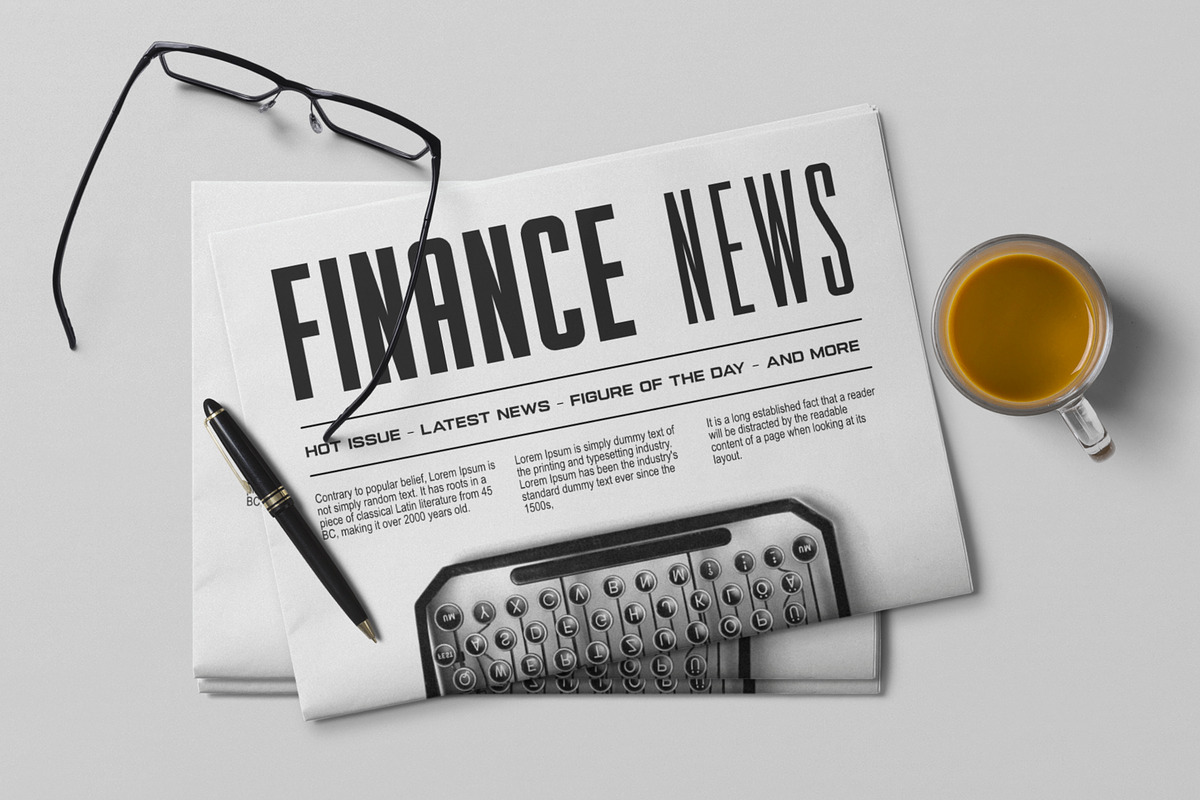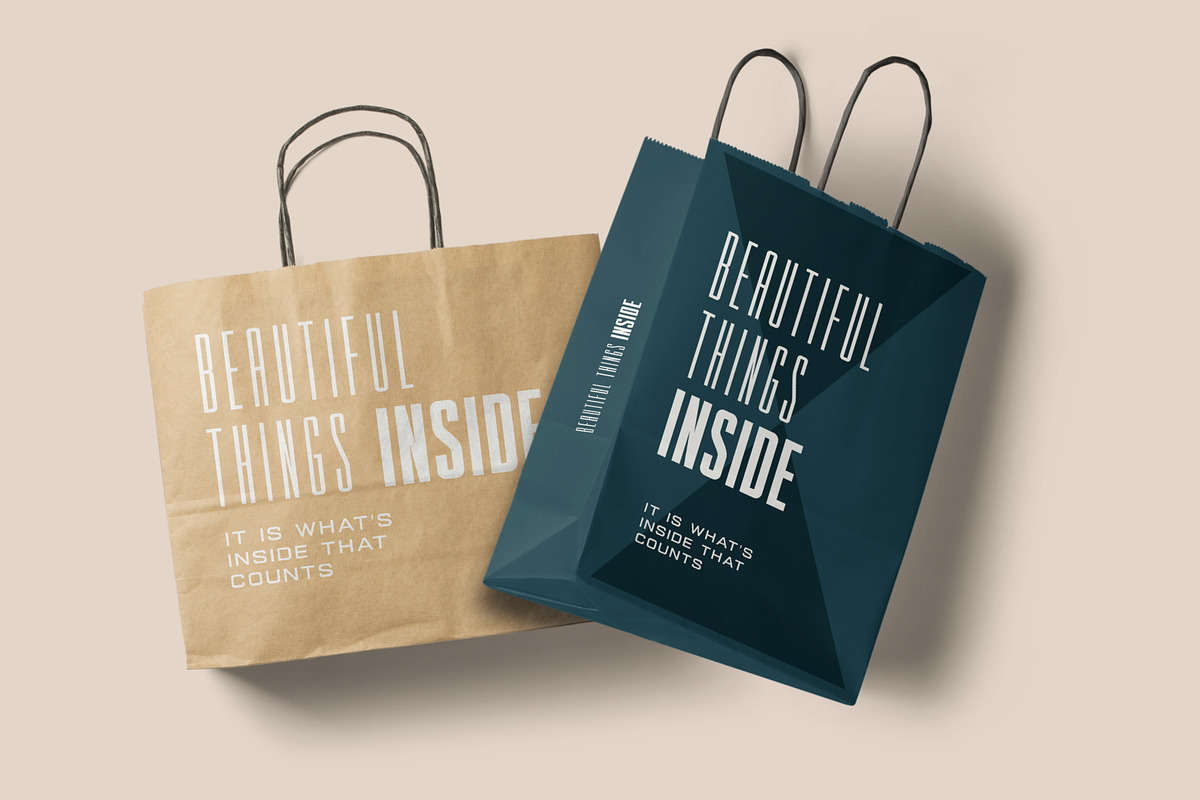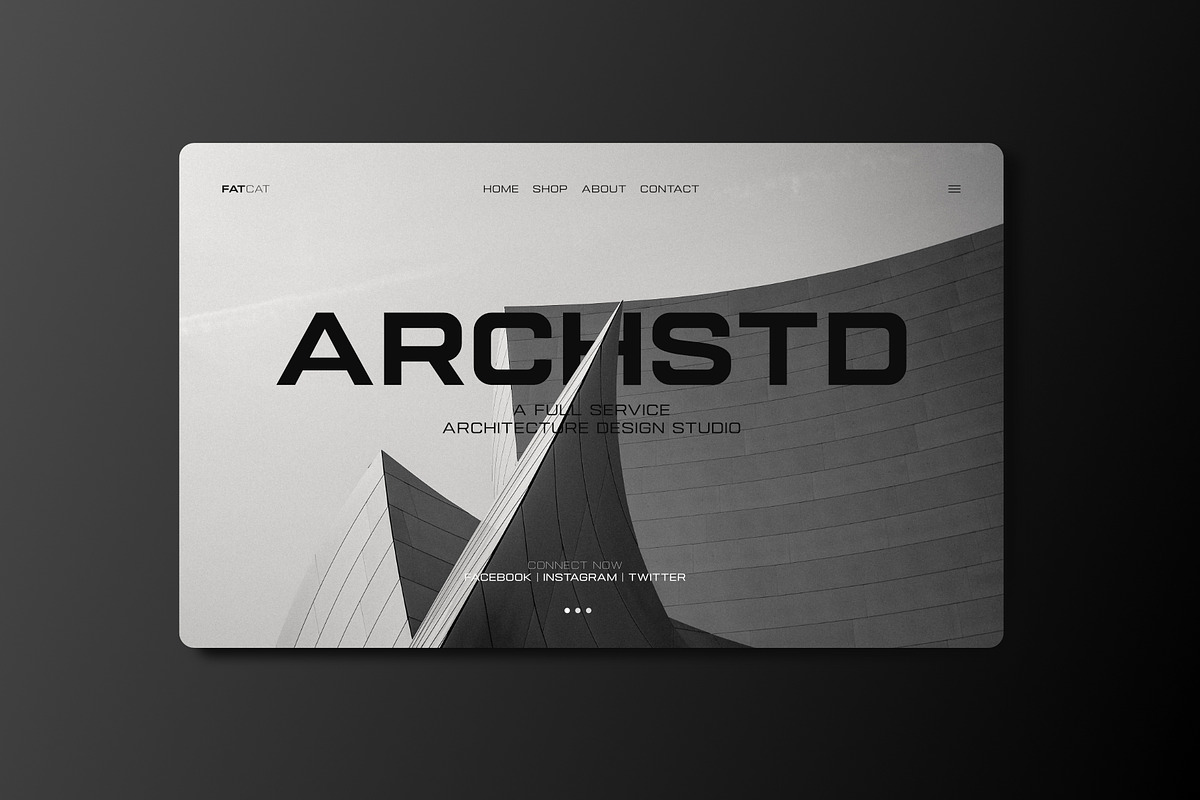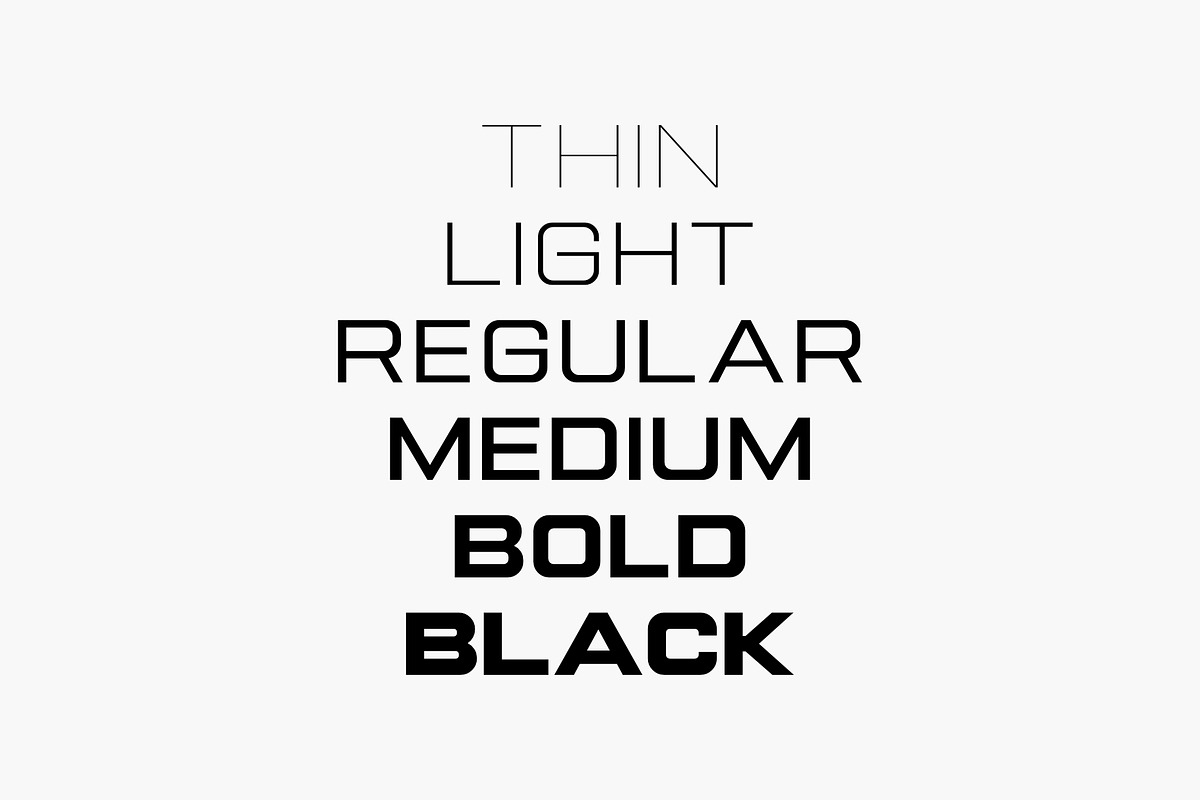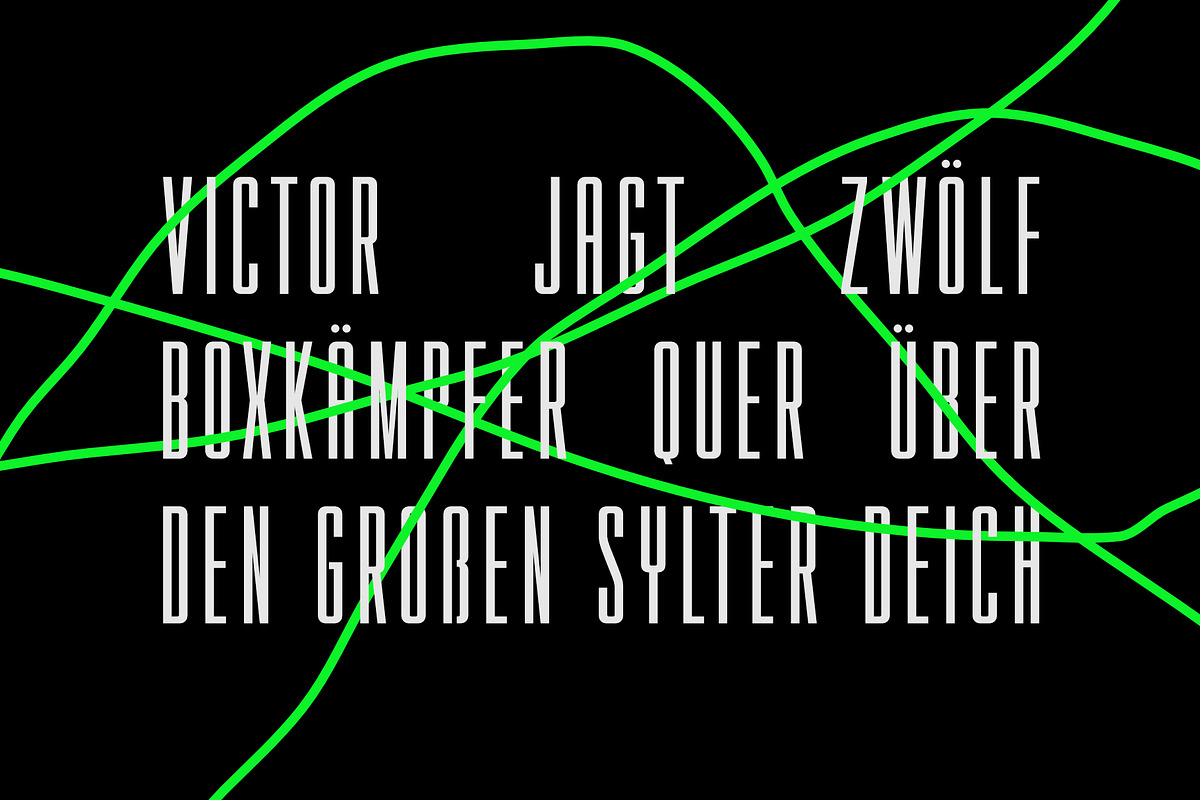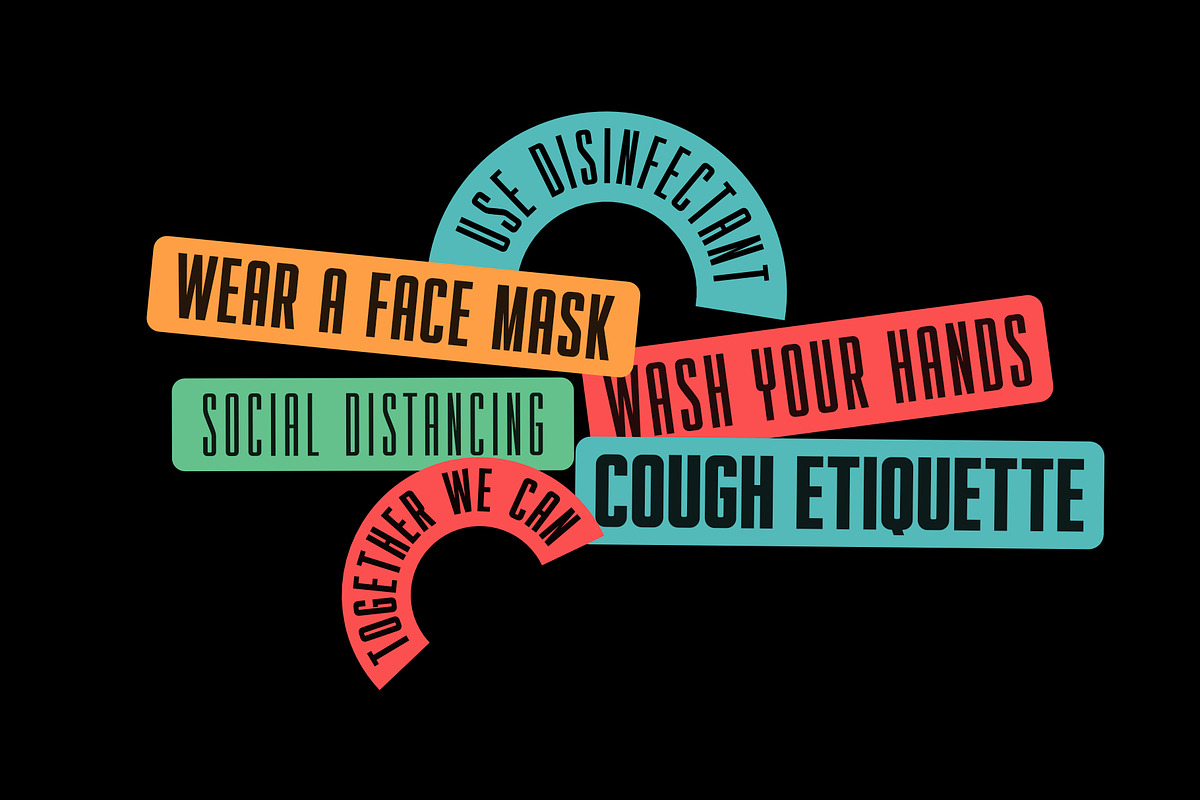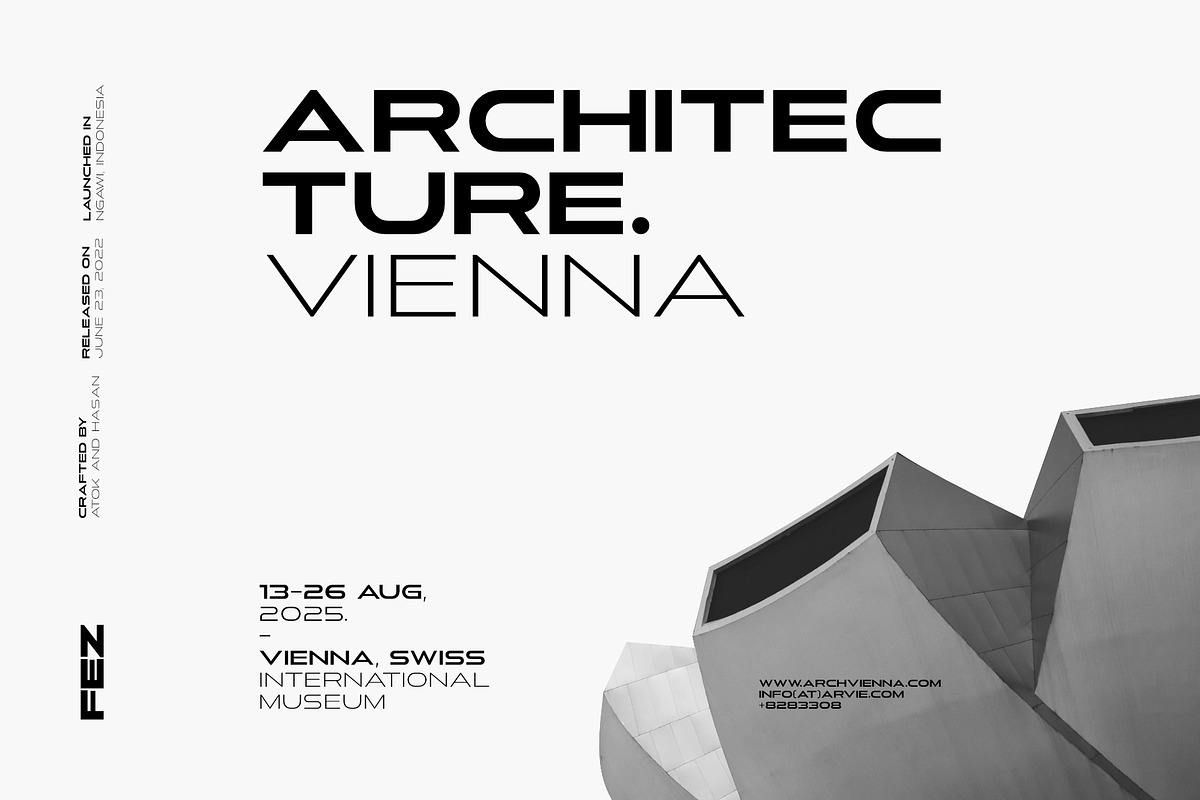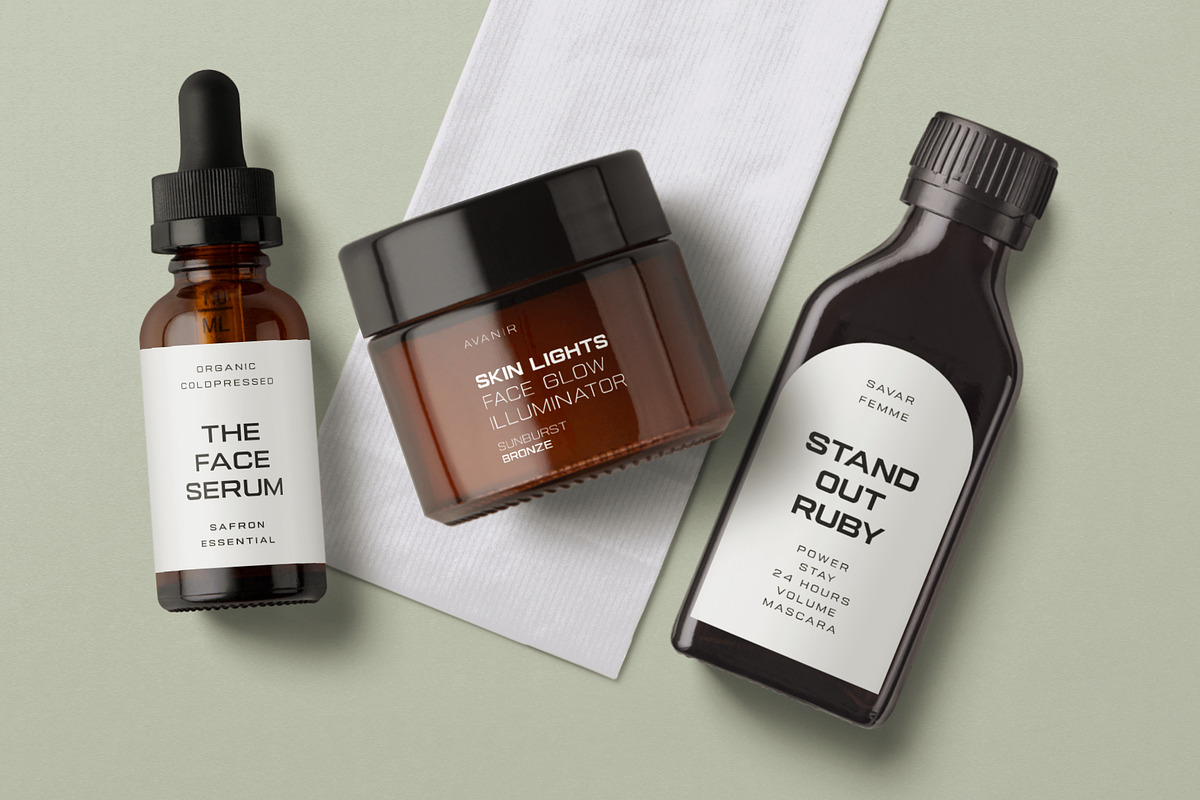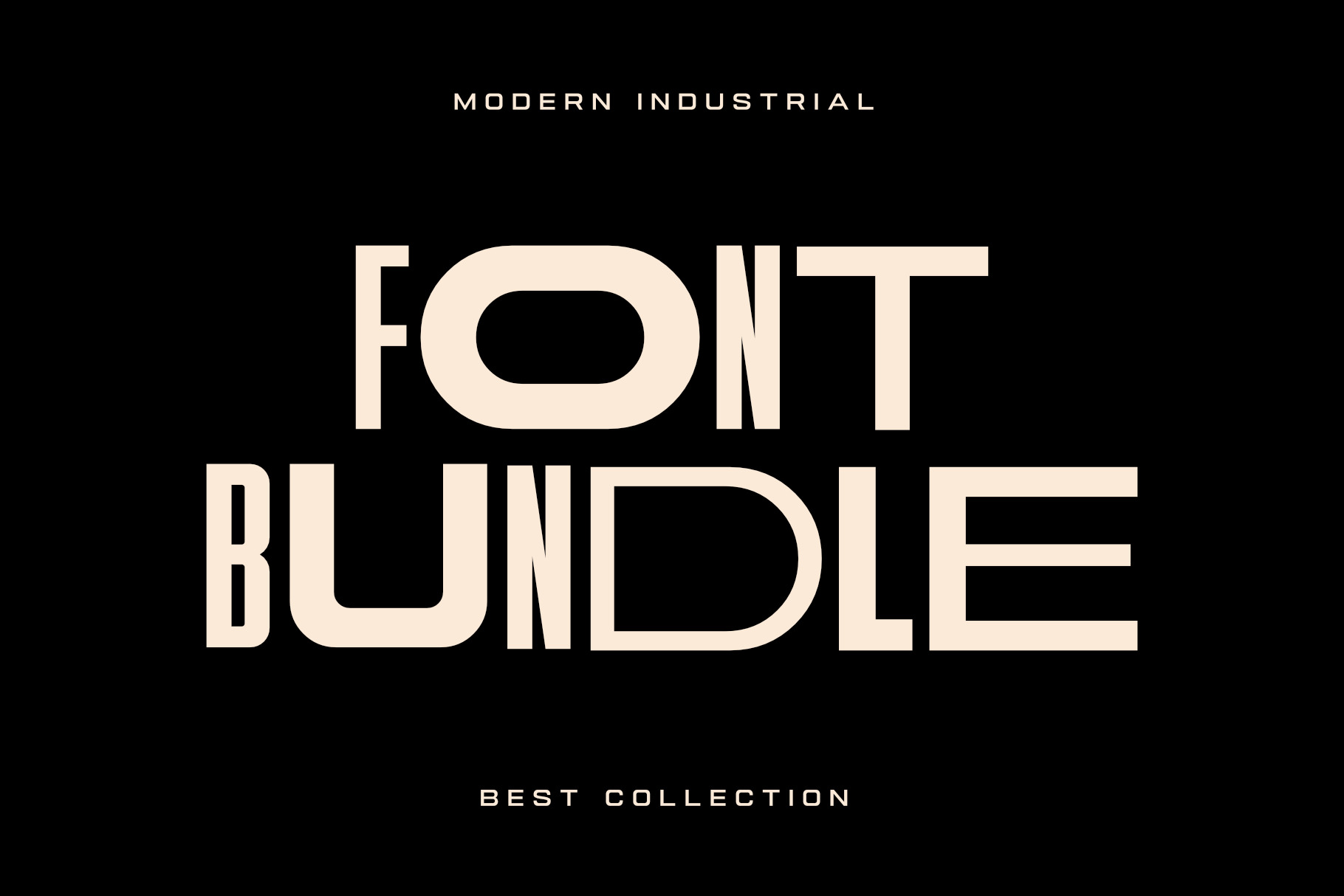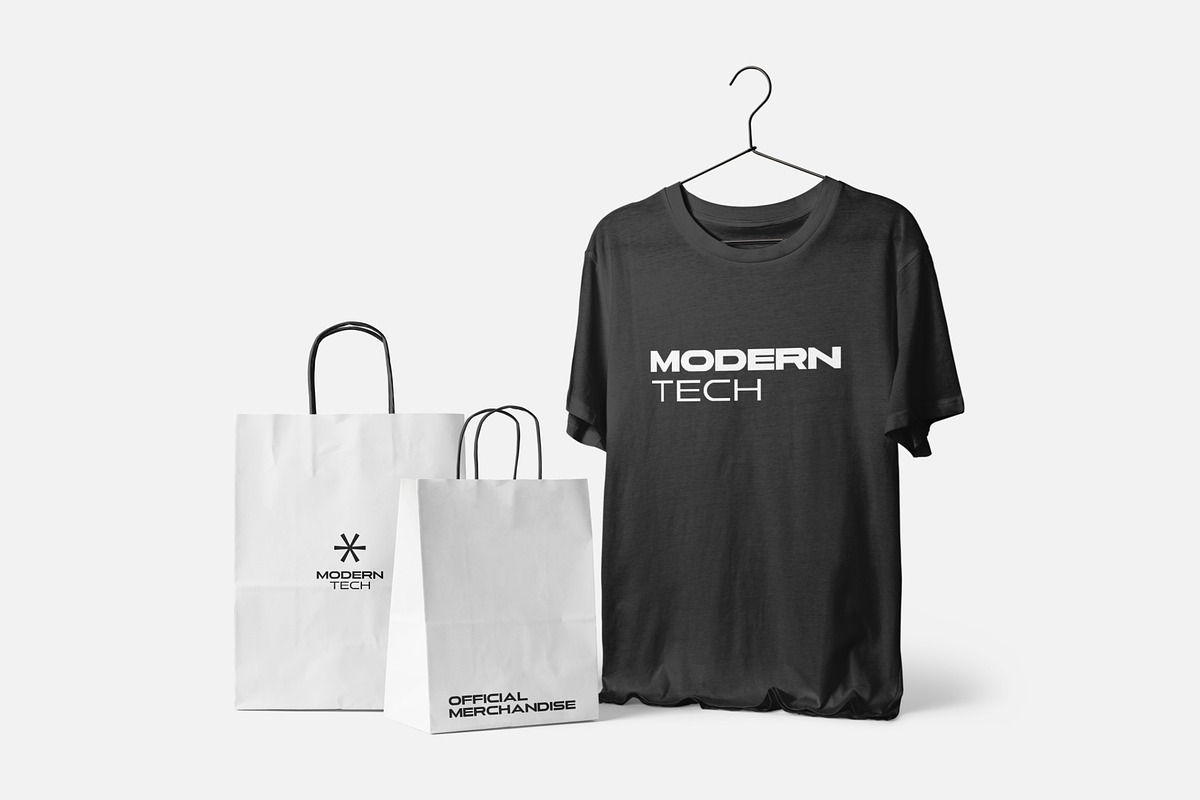
Modern Industrial Font Bundle
One of our best font collections is out now, introducing Modern Industrial Font Bundle.
Get this Modern Industrial Font Bundle which is very suitable and perfect for industrial design, creative projects and some related to technology, gaming, sci-fi themes etc.
By having this font collection (40+ Fonts) and understanding the art and science of typography well will help you to create something truly extraordinary that no one else has ever thought of, such as logo design projects, marketing campaigns, UI design, creative videos, packaging design and similar jobs.
This Modern Industrial Font Bundle offers a touch of font that no other store has ever offered.